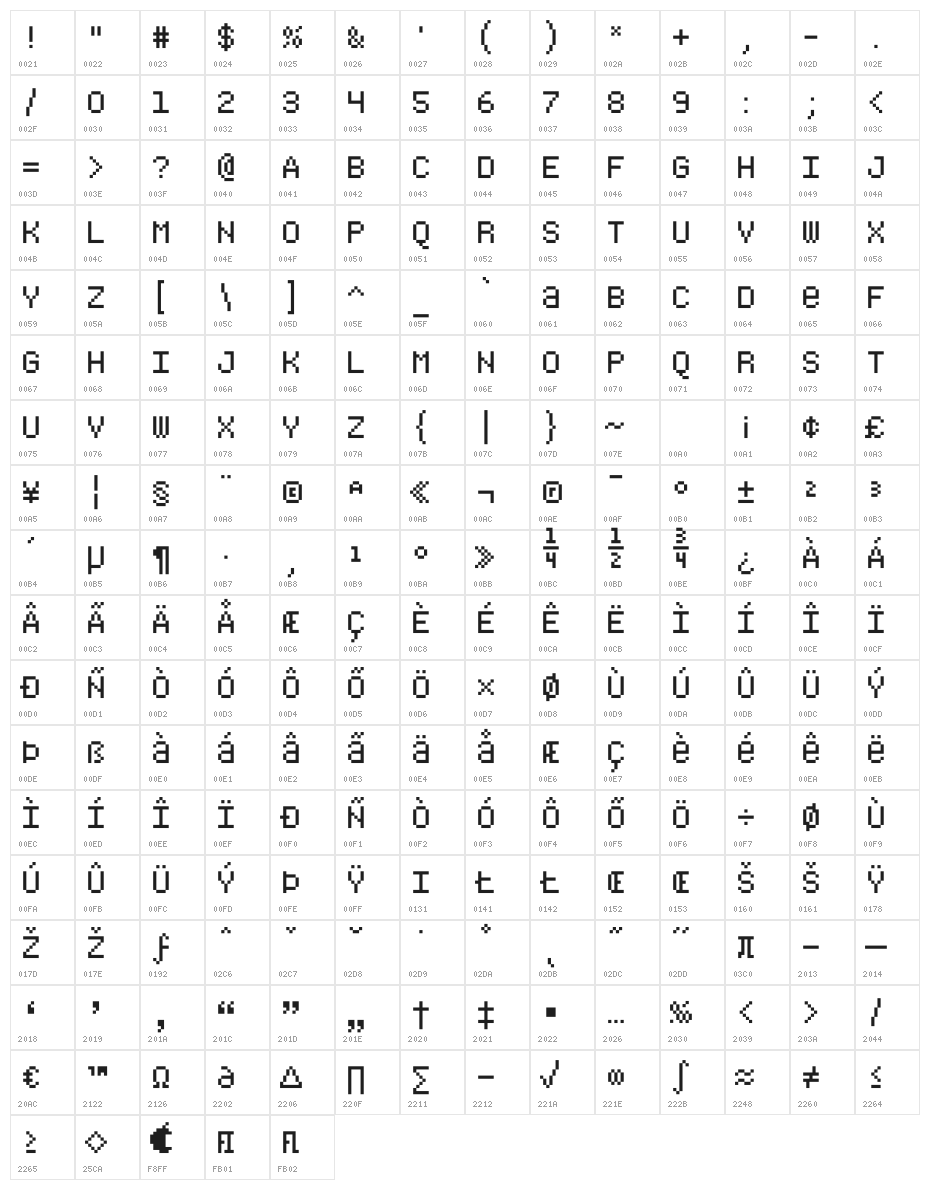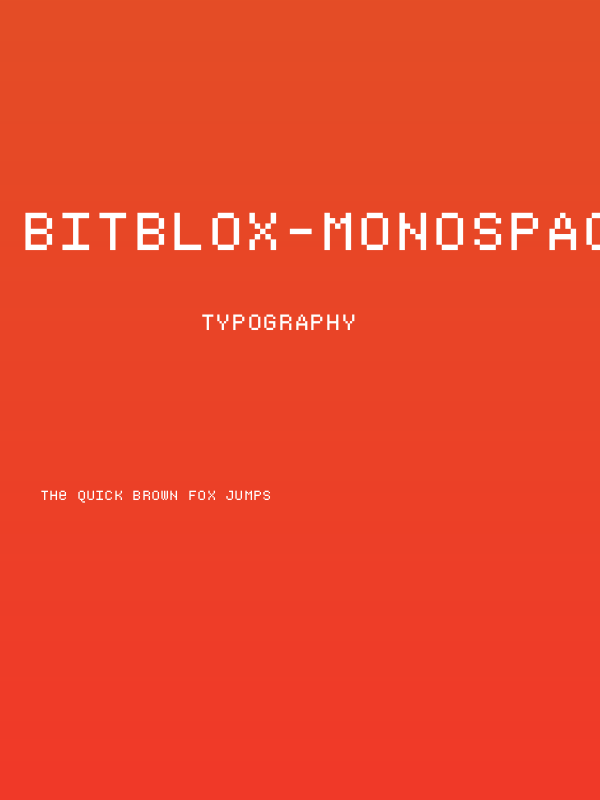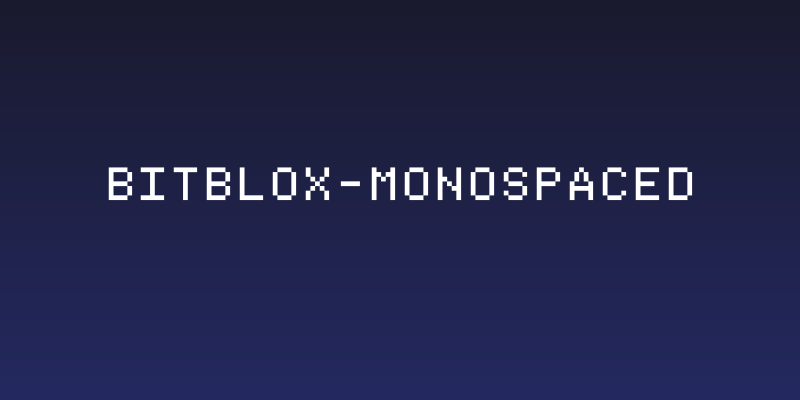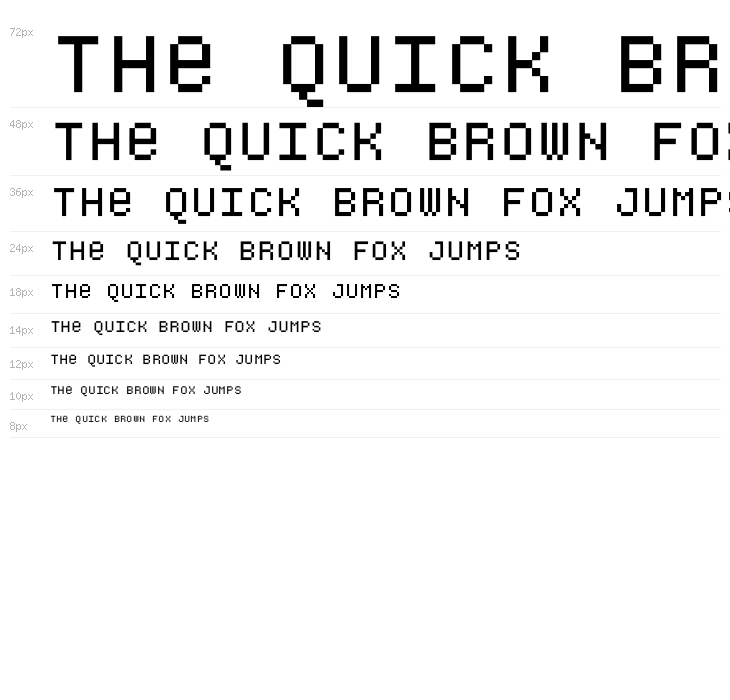
Bitblox-Monospaced Font
Bitblox-Monospaced Description
This font features a monospaced design with a pixelated, blocky appearance reminiscent of early digital displays and retro video games. Each character is uniformly spaced, contributing to a clean and organized look. The characters are composed of square and rectangular shapes, giving them a distinctly digital aesthetic. The uppercase and lowercase letters maintain a consistent height, enhancing readability. The numerals and special characters follow the same pixelated style, ensuring visual cohesion across all elements. This font is ideal for projects that require a nostalgic or tech-inspired theme.
Overall StyleRetro, Digital
Use CaseHeadlines, Logos, Coding interfaces
Proposed ProjectsIdeal for retro video games, tech-themed designs, coding interfaces, and digital art projects.